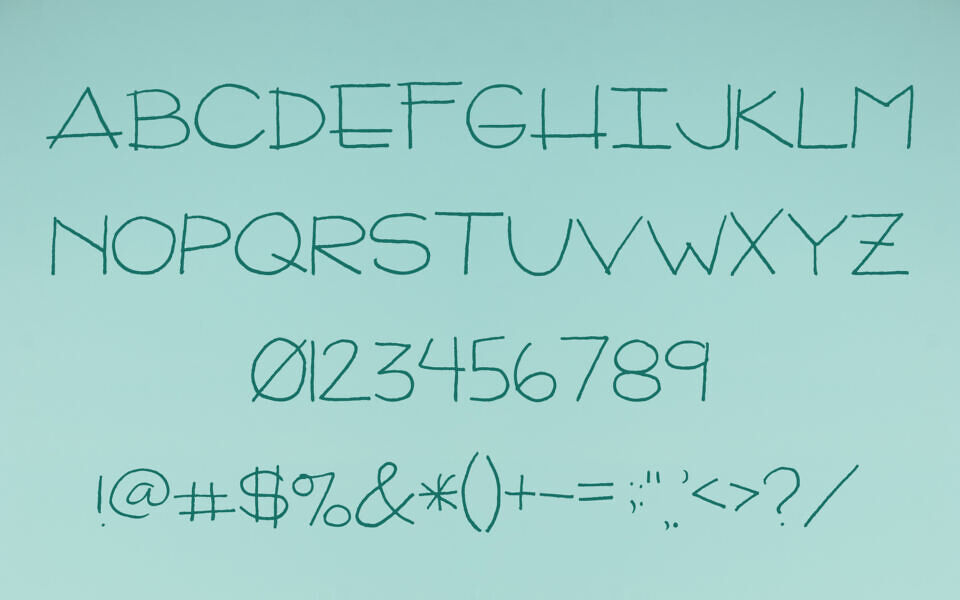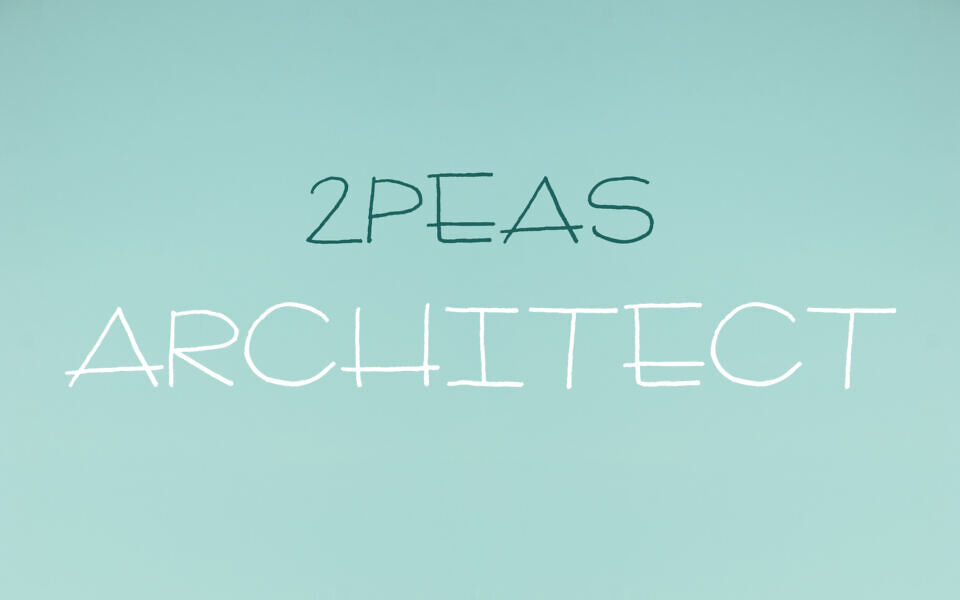
The “2Peas Architect” font is a delicate, all-caps, handwritten typeface. Inspired by the style of architectural lettering, it features clean, straight lines and a slightly uneven, handmade feel.
The numbers include a distinctive slashed zero, and the overall appearance is light and easily approachable. This font is well-suited for adding a personal, yet professional, touch to designs.